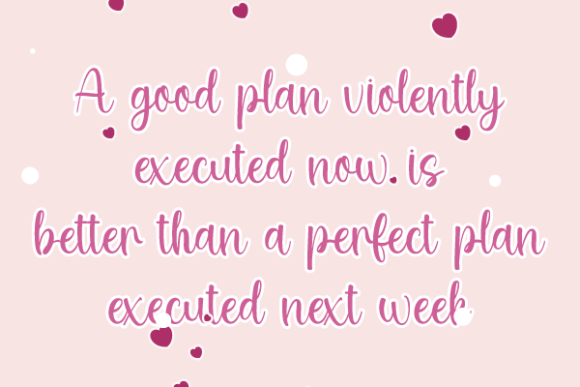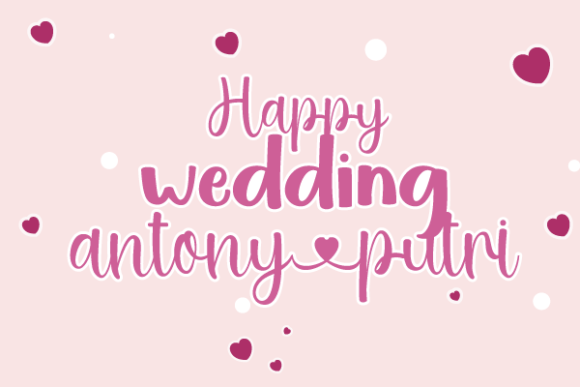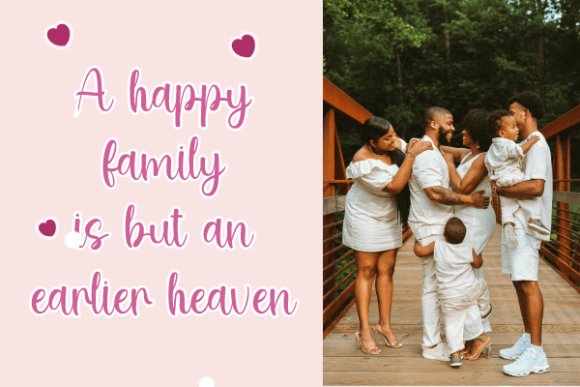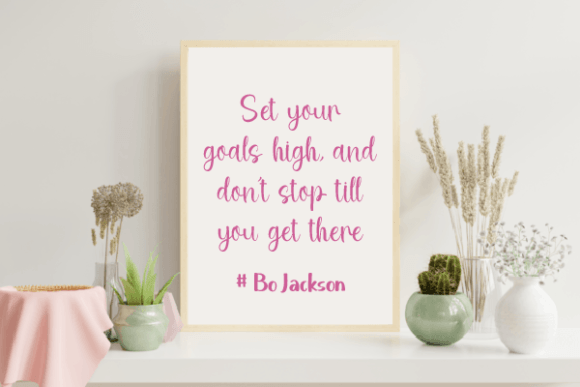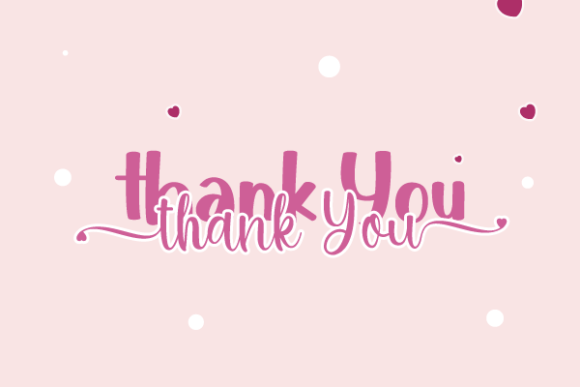
Hello Andyan Duo Font
About Hello Andyan Duo Font
Hello Andyan Duo font is a beautifully crafted set featuring two complementary handwritten fonts: an elegant script and a clean sans serif. Both fonts work harmoniously together or can be used separately to bring a chic, cheerful vibe to various design projects, from wedding invitations to branding.
Stylish Script and Sans Serif Duo
The  combines a flowing script with graceful swashes and a neat sans serif with rounded edges. This pairing allows you to create visually balanced and elegant designs, making it perfect for designers looking for versatility and style.
Ideal Uses for Hello Andyan Duo Fon
This versatile font duo works well for:
• Social media posts and marketing materials
• Craft projects and personalized gifts
• Packaging and product labels
Use the Hello Andyan Duo fon to add sophistication and joy to your creative projects.
Why Choose Hello Andyan Duo Font?
Designers love this font duo for its:
• Complementary script and sans serif styles
• Elegant and readable letterforms
• PUA encoding for easy access to glyphs and ligatures
• Flexibility across both print and digital media
These features make Hello Andyan Duo fon a practical and stylish choice.
Add Elegance and Cheer to Your Designs
Typography defines your project’s personality. The Hello Andyan Duo  brings elegance, warmth, and versatility, helping your designs emotionally connect with your audience. Whether for formal branding or casual crafts, this font duo elevates your work.
Final Thoughts on Hello Andyan Duo Font
In summary, Hello Andyan Duo fon is a chic and versatile pair of handwritten font, perfect for designers who want stylish script and sans serif options. Add this font duo to your collection to create memorable and beautiful designs.